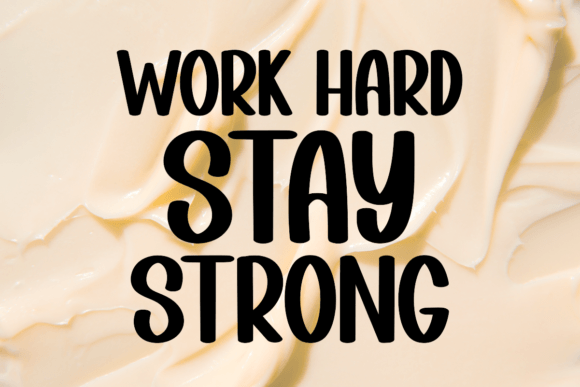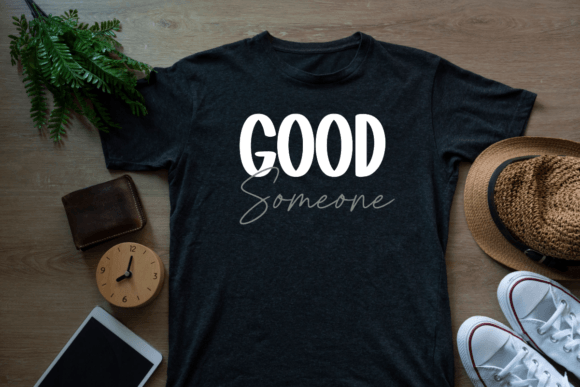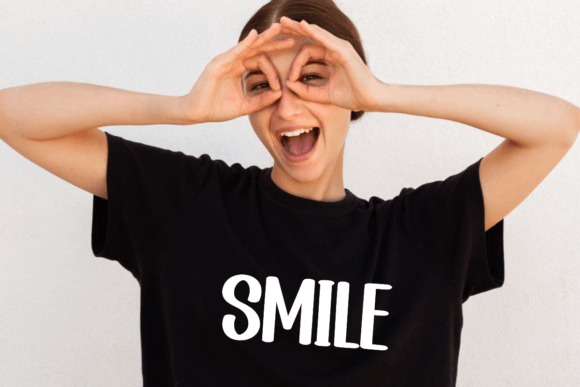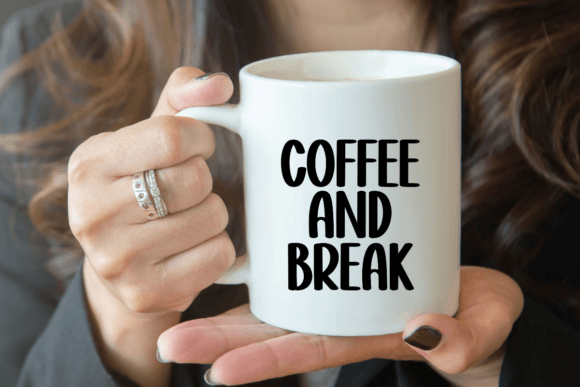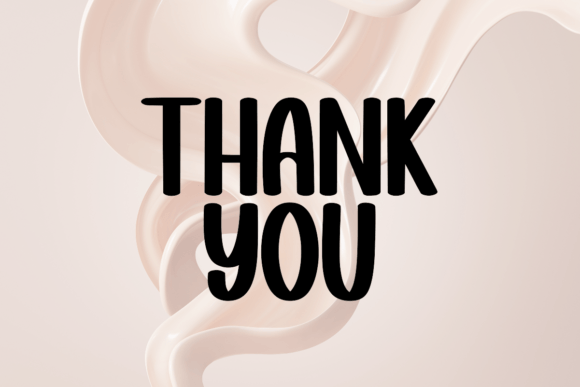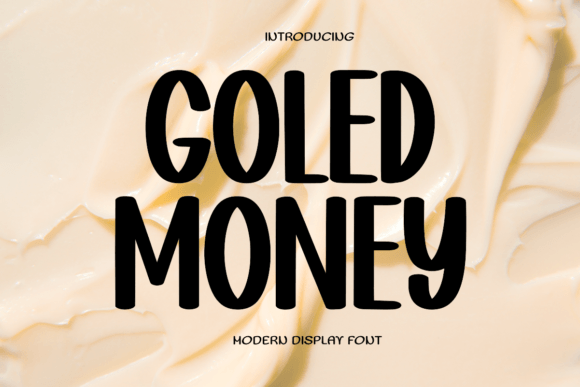
Introducing Goled Money Font: The Perfect Blend of Playfulness and Elegance
Are you on the hunt for a font that can add a touch of whimsy and sophistication to your designs? Look no further than Goled Money Font! This charming display font is designed to capture the hearts of designers and crafters alike with its unique blend of playfulness and elegance.
The Unique Characteristics of Goled Money Font
Goled Money Font is a one-of-a-kind typeface that boasts an incredibly distinct and timeless style. Its cute and playful design makes it perfect for a wide range of projects, from branding and advertising to packaging and digital media. The font’s elegant touch ensures that it can be used in both formal and informal settings, making it a versatile addition to any designer’s toolkit.
What Makes Goled Money Font So Special?
So, what sets Goled Money Font apart from other fonts on the market? Here are just a few of its standout features:
- Unique and Memorable Design: Goled Money Font has a distinctive style that is sure to grab attention and leave a lasting impression.
- Playful yet Elegant: This font strikes the perfect balance between playfulness and sophistication, making it suitable for a wide range of projects and audiences.
- Highly Versatile: Goled Money Font can be used in a variety of contexts, from digital media to print materials, and can be easily paired with other fonts to create stunning designs.
- Easy to Read and Understand: Despite its playful design, Goled Money Font is highly legible, making it perfect for use in body text as well as headings and titles.
How to Use Goled Money Font in Your Designs
Goled Money Font is an incredibly versatile typeface that can be used in a wide range of design projects. Here are just a few ideas to get you started:
- Branding and Logo Design: Use Goled Money Font to create a memorable and eye-catching logo that reflects your brand’s personality and style.
- Social Media Graphics: Add a touch of whimsy and elegance to your social media graphics with Goled Money Font, perfect for creating engaging and shareable content.
- Packaging Design: Use Goled Money Font to create eye-catching packaging that stands out on store shelves and showcases your product in a unique and compelling way.
- Digital Media: Goled Money Font is perfect for use in digital media, including website headers, email newsletters, and online advertising.
Tips and Tricks for Getting the Most Out of Goled Money Font
To get the most out of Goled Money Font, here are a few tips and tricks to keep in mind:
- Pair with Other Fonts: Goled Money Font pairs well with a wide range of other fonts, so don’t be afraid to get creative and try out different combinations.
- Use in Combination with Images and Graphics: Goled Money Font is even more stunning when used in combination with images and graphics, so consider adding a visual element to your design.
| Font Name | Goled Money Font |
| Author | Minimalist Eyes |
In conclusion, Goled Money Font is a unique and versatile typeface that is perfect for designers and crafters looking to add a touch of whimsy and elegance to their designs. With its incredibly distinct and timeless style, this font is sure to grab attention and leave a lasting impression. So why wait? Fall in love with Goled Money Font and start creating spectacular designs today!